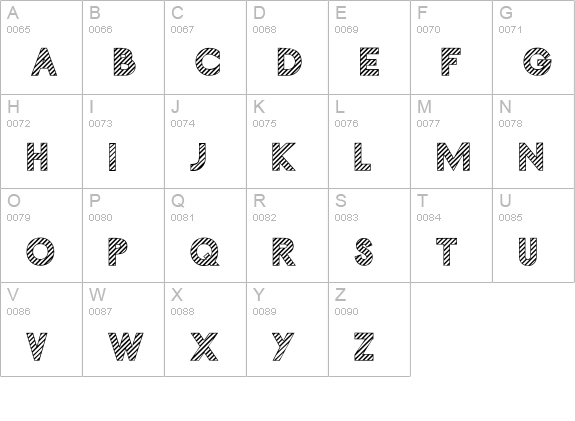
Zebrures Tryout Font Details
Introducing Zebrures Tryout font, a stunning display typeface that exudes elegance and sophistication. With its bold strokes and unique design, this font is perfect for making a statement in your graphic design projects. Whether you're creating posters, logos, or invitations, Zebrures Tryout font will surely catch the eye of your audience. What makes Zebrures Tryout font even more appealing is that it is available for free! Yes, you read that right - you can download this beautiful font at no cost from FontsMarket.com. So why wait? Add a touch of class to your designs with Zebrures Tryout font today.